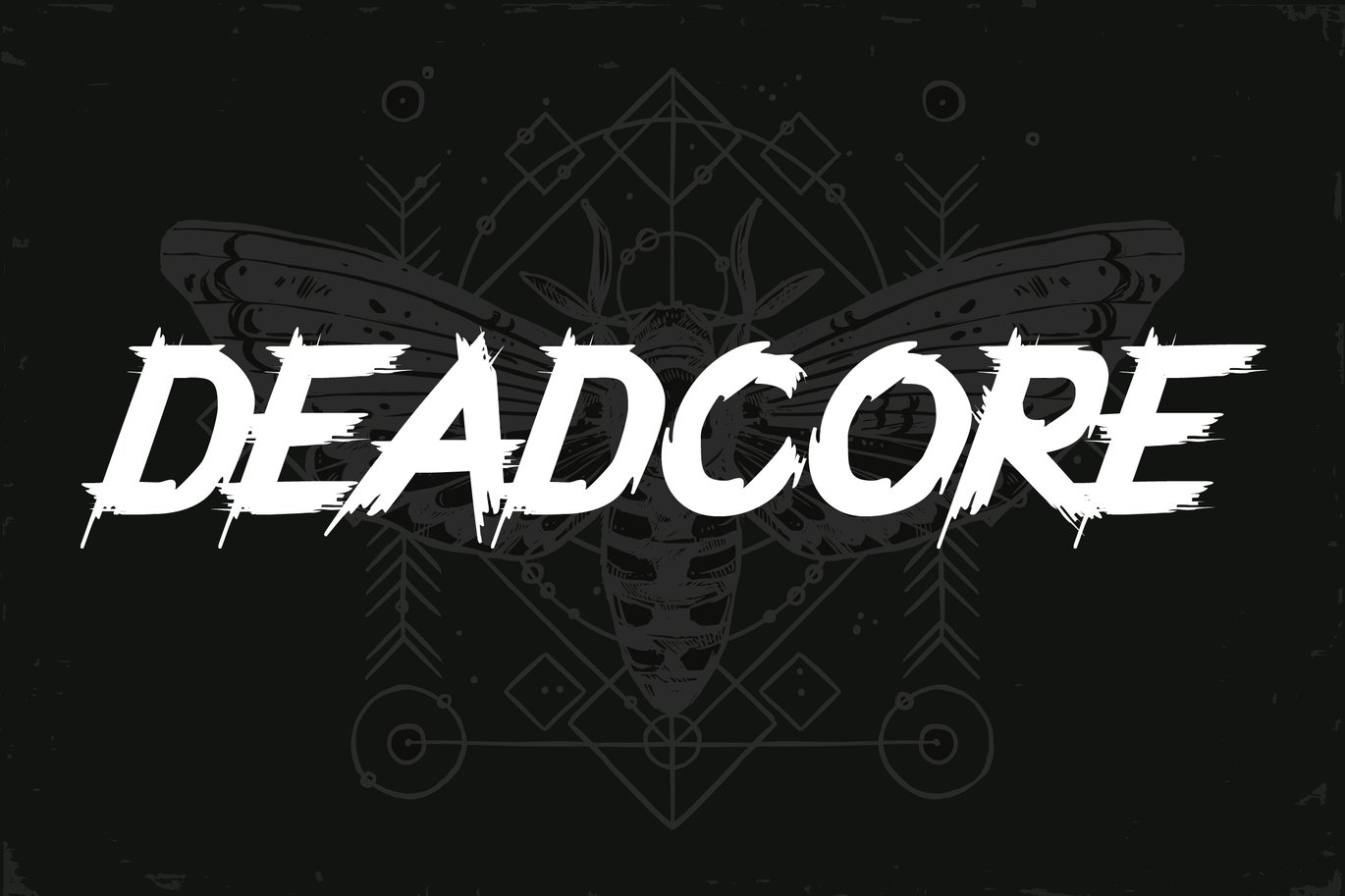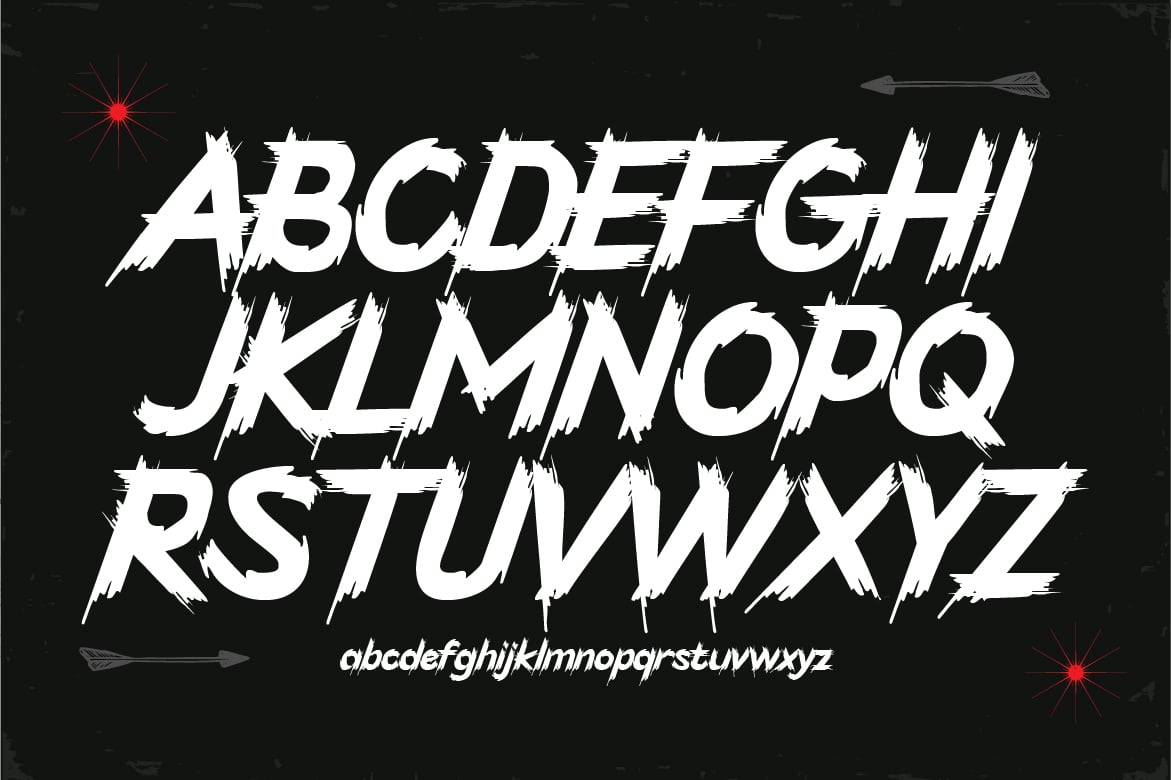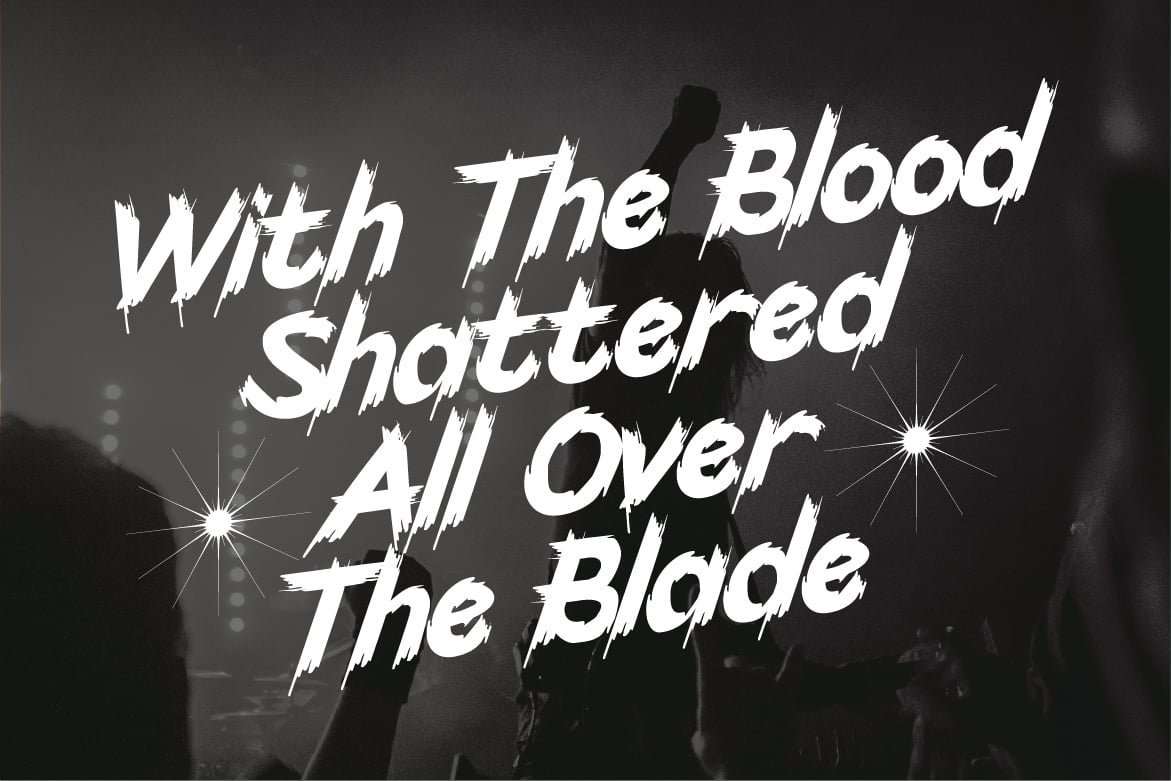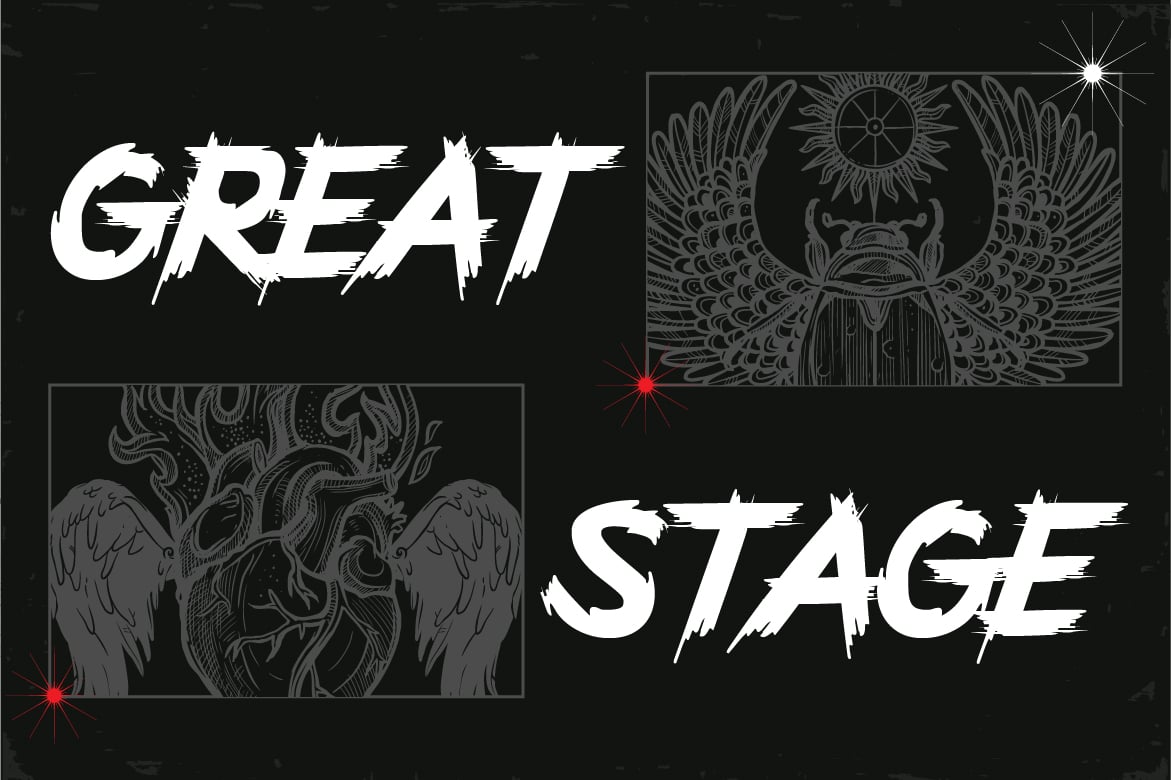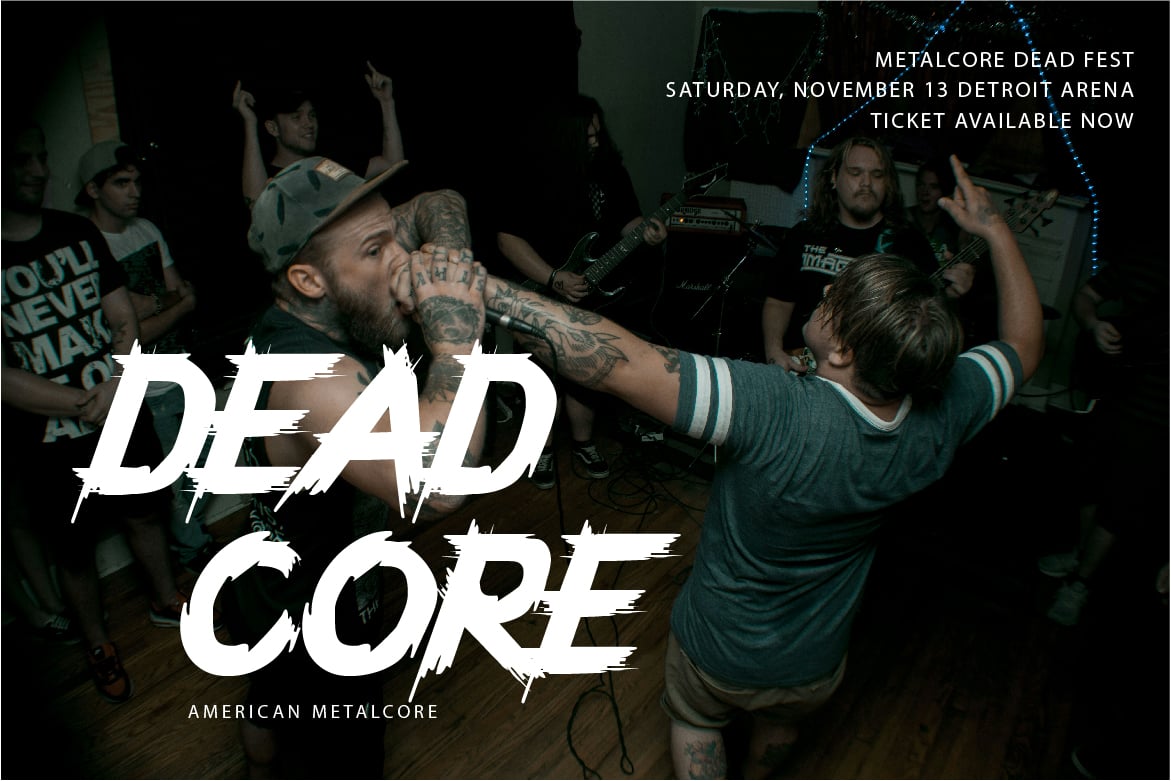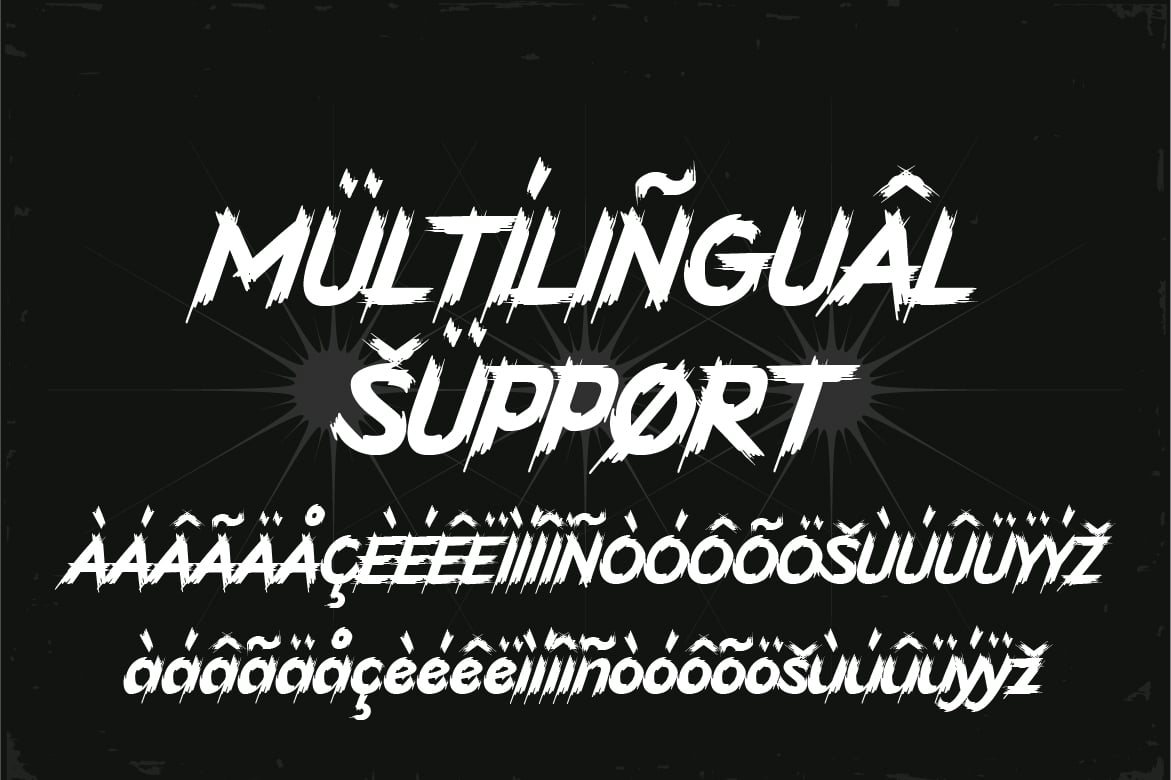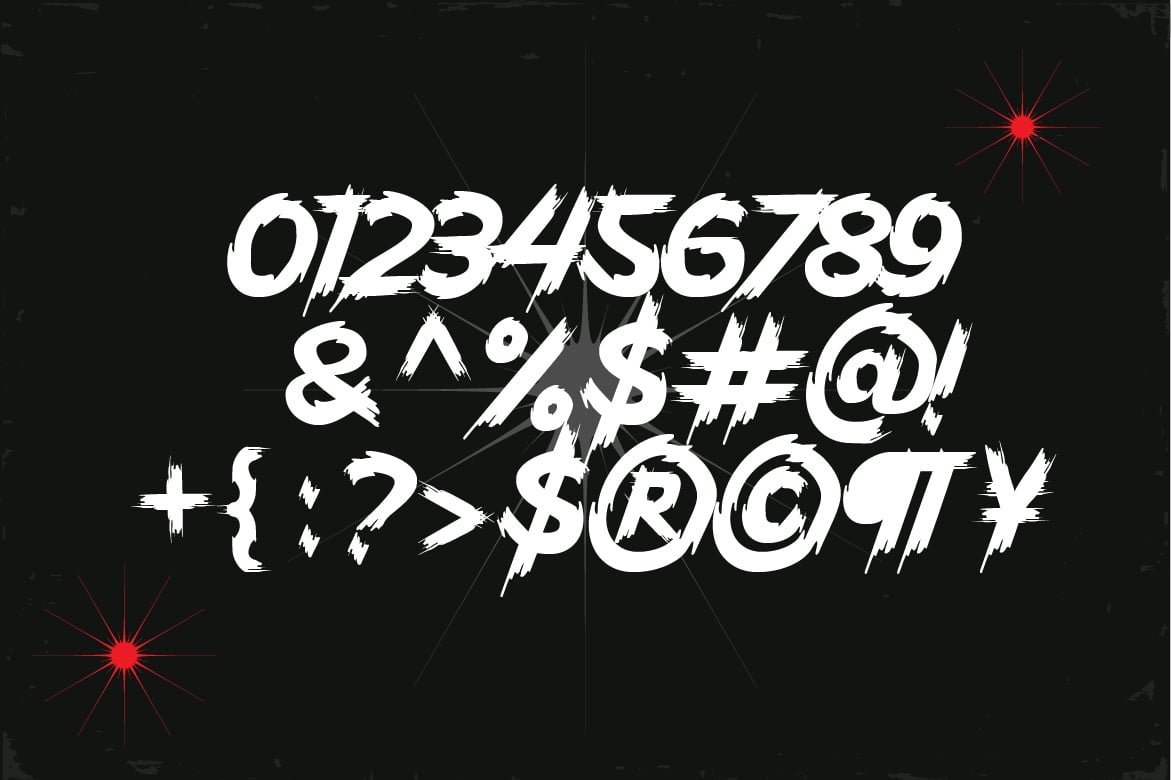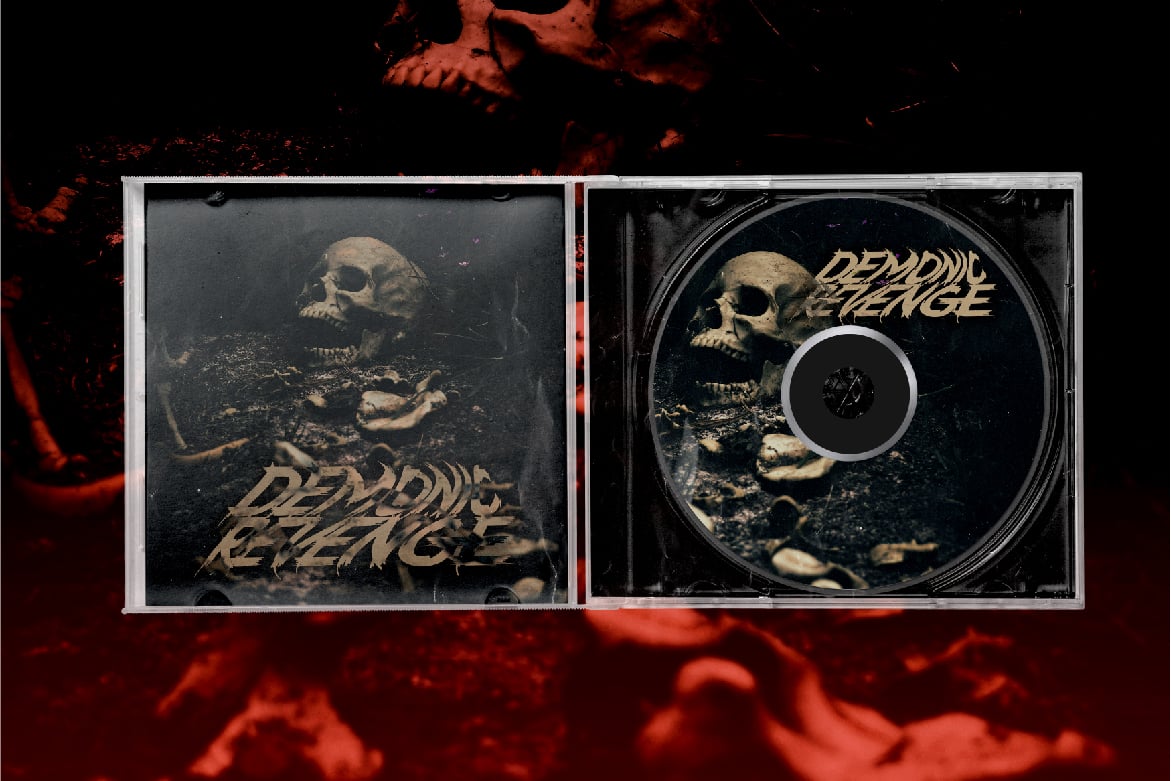
Deadcore – Metal Music Font
Unleash the raw power of heavy metal with Deadcore – Metal Music Font, a bold and aggressive typeface designed for fans of metal music and extreme aesthetics. This font blends sharp, jagged edges with intricate details, evoking the fierce energy of metal album covers, band logos, and event posters.